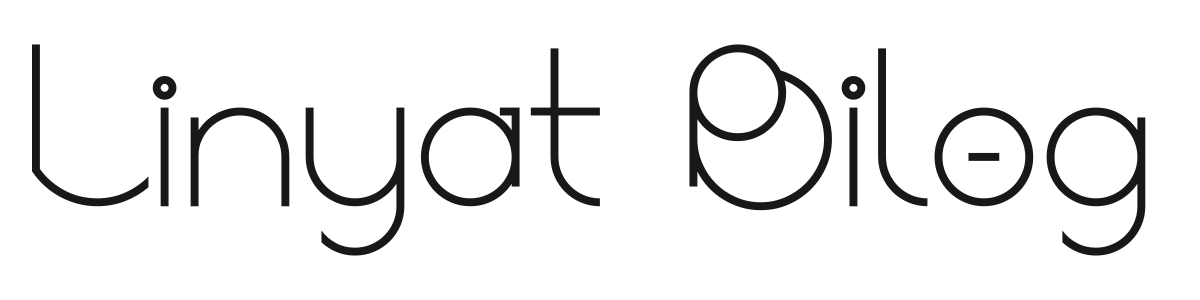
Linyat Bilog
Linyat Bilog is a line-and-circle font built from exactly two elements: straight strokes and perfect circles. Created to commemorate the triple-ten date of October 10, 2010, the concept is baked into the construction itself. The result is an ultra-thin geometric display face that reads as both typographic and diagrammatic.